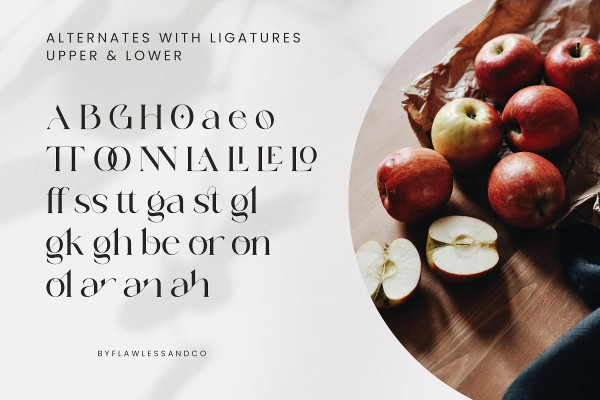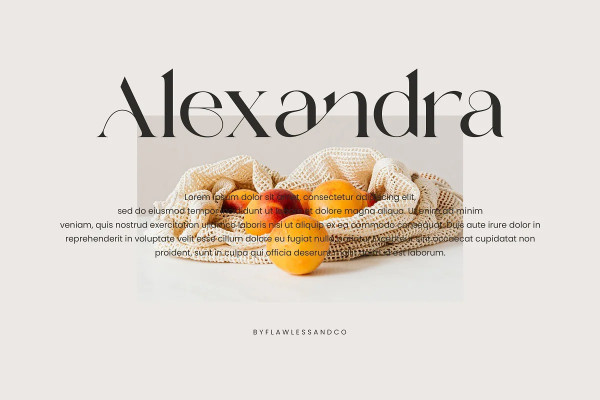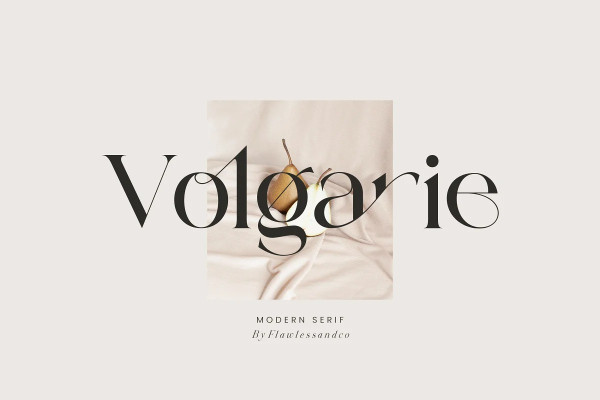
Volgarie Font
Volgarie Font – Modern Serif Font, our new VolgarieFont, Modern Font with Elegant Style is perfect for branding, logos, invitation, master heads, and more.